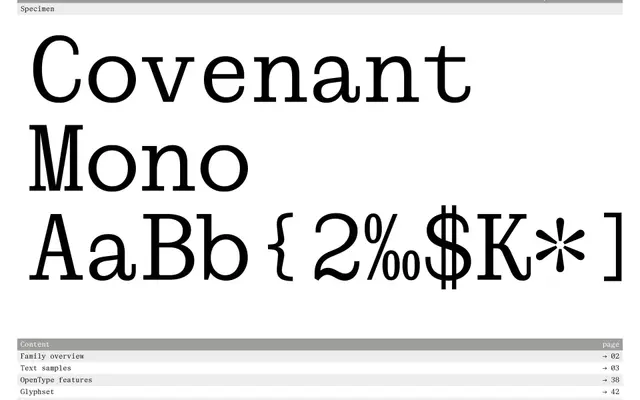
Covenant Mono
A five-weight monospaced family with italics throughout, suited to code environments and screen-set extended text.
Ten styles span ExtraLight to Bold, each with a matching italic, giving Covenant Mono a weight range broader than most monospaced releases. The specimen demonstrates it at display sizes down to 16 px running body copy, suggesting the family is intended for general reading as much as terminal or code use. Proof of Words position it as a practical workhorse rather than a niche coding tool.
A fixed-width typeface offered across multiple weights with italics, designed for code, screen and extended text settings in the monospaced tradition.